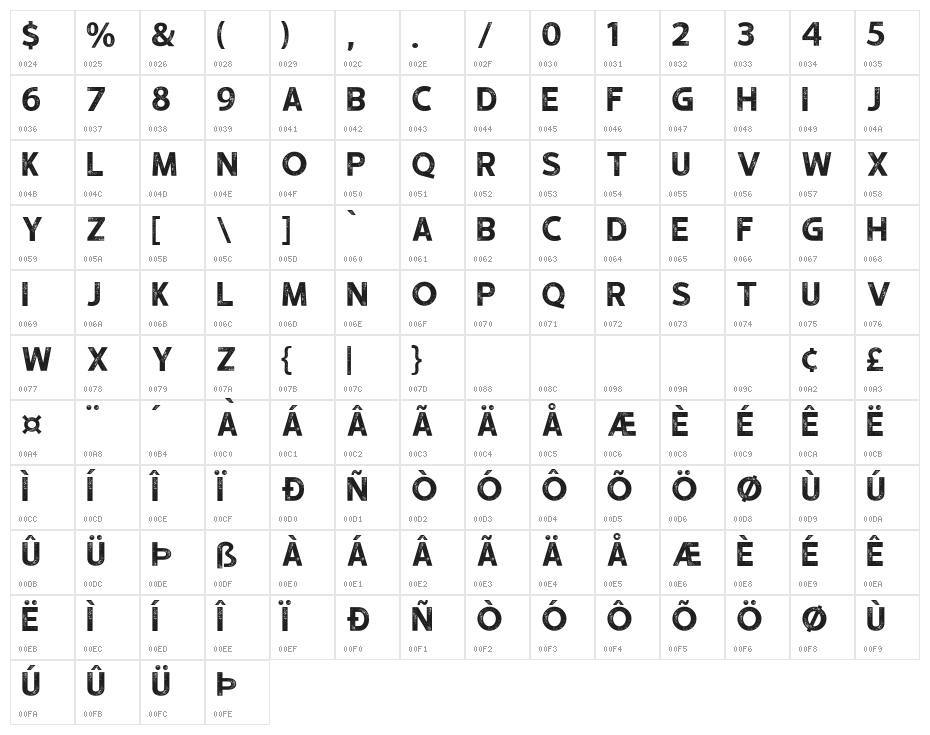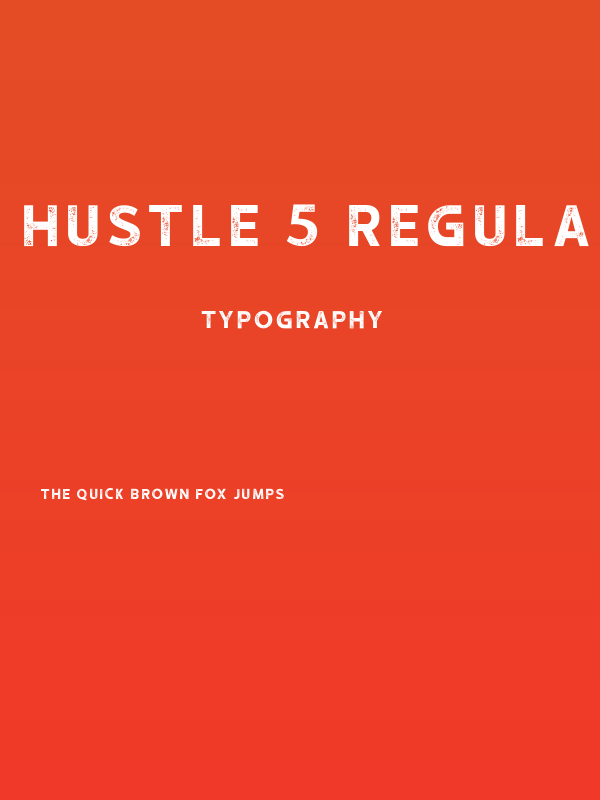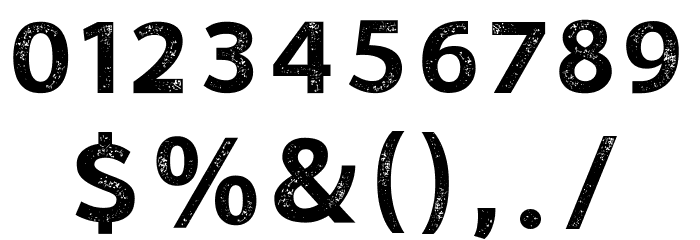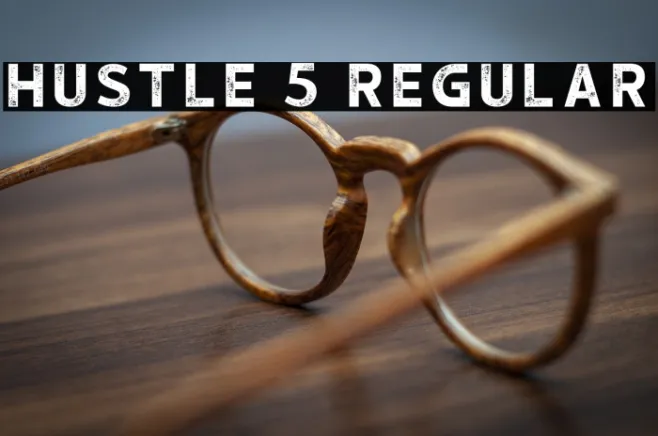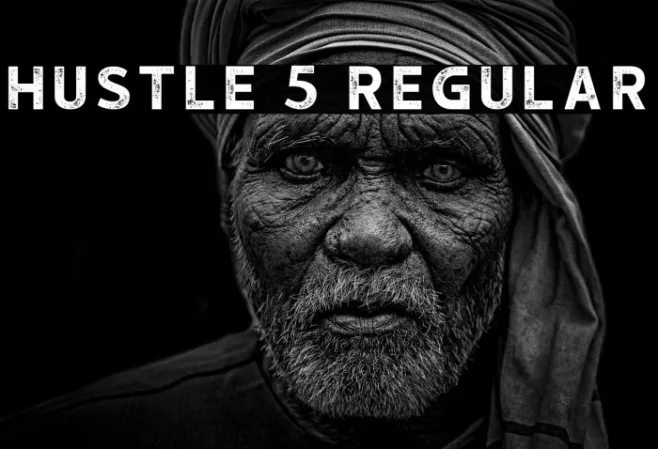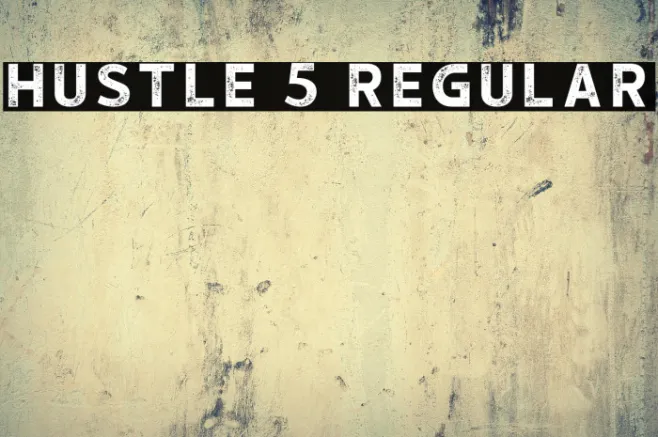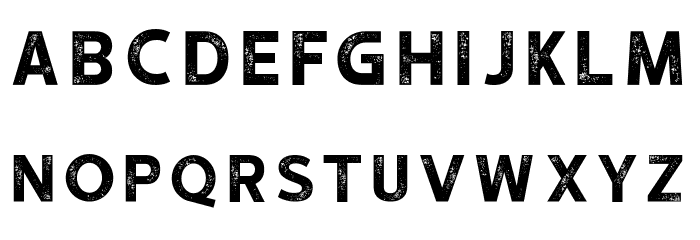
hustle 5 Regular Font
hustle 5 Regular Description
This font features a bold, distressed style that gives it a rugged and vintage appearance. The characters are uppercase and numerals, with a textured effect that suggests wear and age, adding a unique character to the design. The font maintains a consistent weight throughout, with a strong presence that makes it ideal for impactful headlines or branding materials. The spacing between characters is normal, allowing for clear readability while still maintaining its distinctive style. The overall look is both modern and nostalgic, making it versatile for various creative projects.
| Proposed Projects | Ideal for branding, posters, headlines, and vintage-themed designs. |